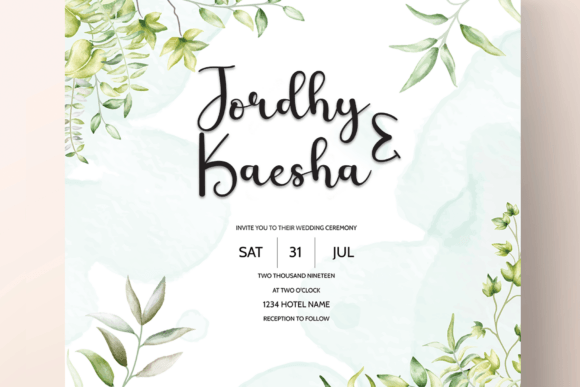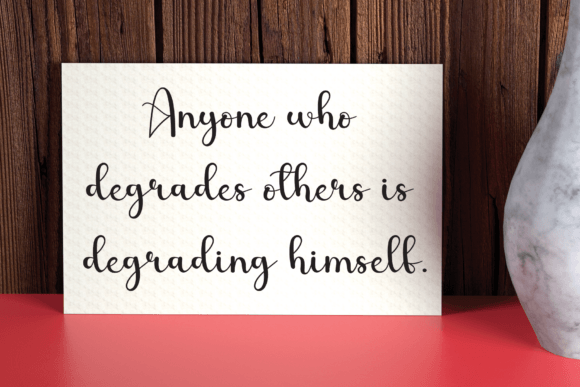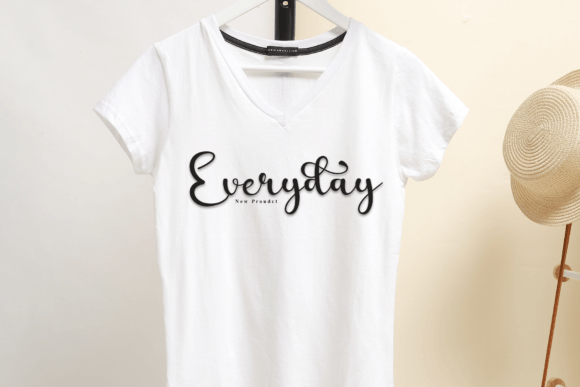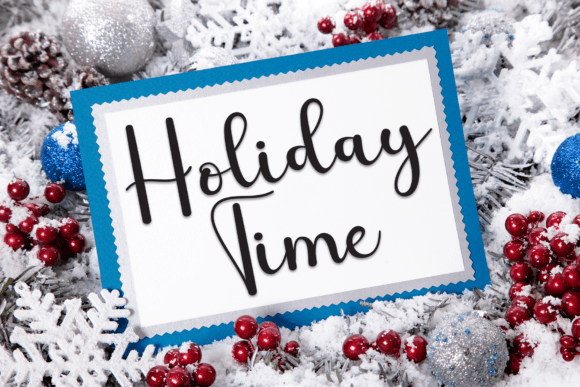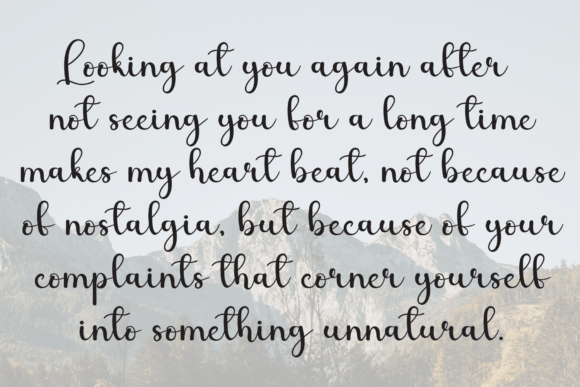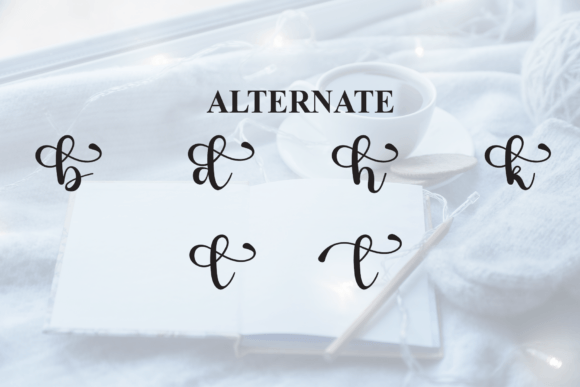
The Charming Frostybook Font: A Designer’s New Best Friend
I’ll never forget the time I was working on a wedding invitation project, and my client asked for a font that was “friendly, yet elegant.” I scoured the internet, tried out dozens of fonts, but nothing seemed quite right. That was until I stumbled upon Frostybook, a delightful handwritten display font that instantly won me over. In this article, I’ll share my experience with Frostybook, its unique features, and how to make the most of it in your designs.
An Honest Review of Frostybook
What I Love About Frostybook ✨
- ✅ Unique, sweet disposition that’s perfect for friendly and approachable designs
- ✨ Highly legible, even at smaller font sizes
- 💕 Extensive OpenType features, including glyphs and stylistic alternates
- 🎉 Works beautifully for both digital and print designs
- ⚠️ Some characters may appear a bit narrow, so be mindful of spacing
- ⚠️ Not ideal for body text, as it’s best suited for headlines and titles
The Story Behind Frostybook
Frostybook was designed with the intention of creating a friendly, yet elegant font. The designer aimed to craft a font that would evoke a sense of warmth and approachability, perfect for designs that require a personal touch. Whether it’s a wedding invitation or a playful greeting card, Frostybook is sure to bring a smile to your audience’s face.
Q: What type of designs is Frostybook best suited for?
A: Frostybook is perfect for designs that require a friendly and approachable aesthetic, such as wedding invitations, greeting cards, and playful posters.
Q: Is Frostybook a difficult font to read?
A: No, Frostybook is highly legible, even at smaller font sizes, making it suitable for a variety of design applications.